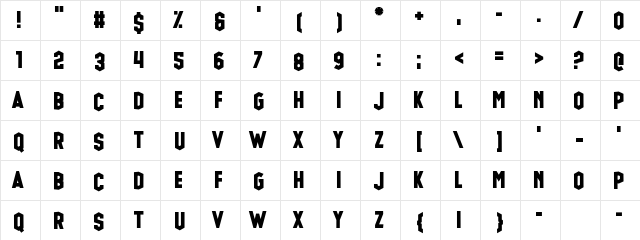
Glue Gun Regular
Design Context for Glue Gun Typeface
Glue Gun is a composed and adaptable typeface that performs quietly and consistently across a wide range of design contexts.